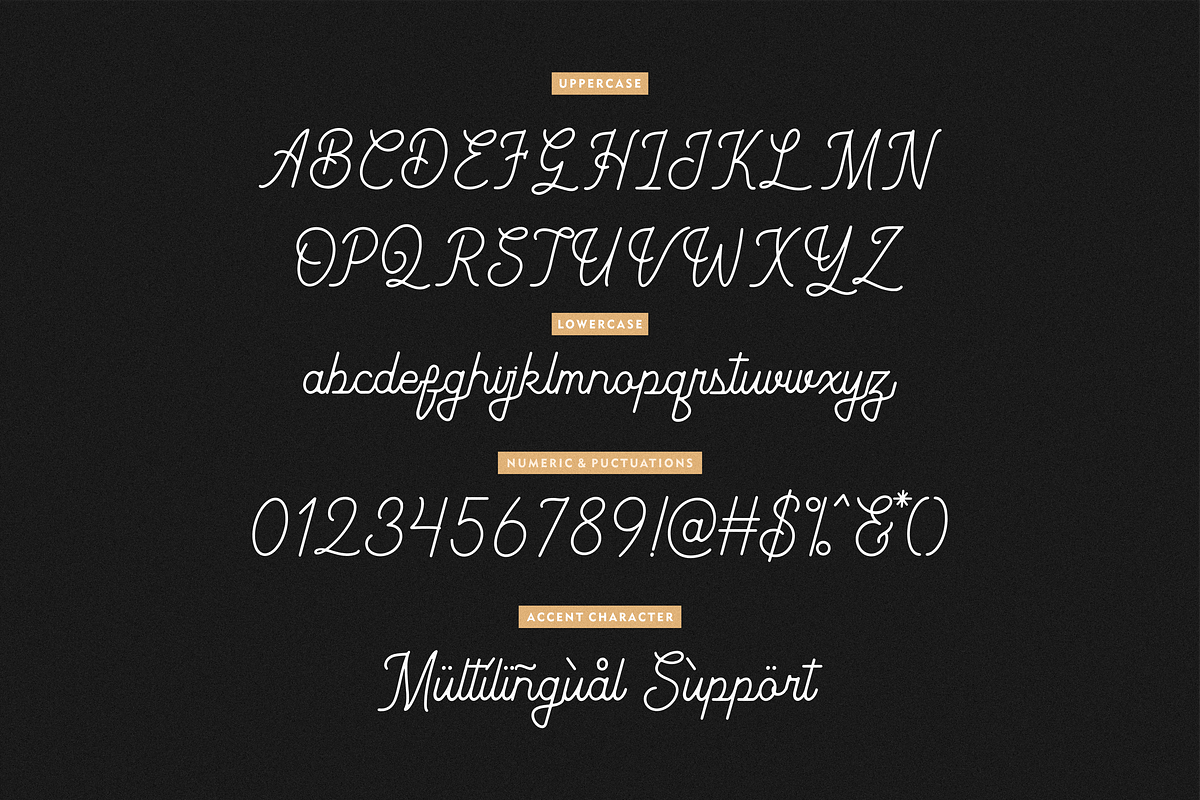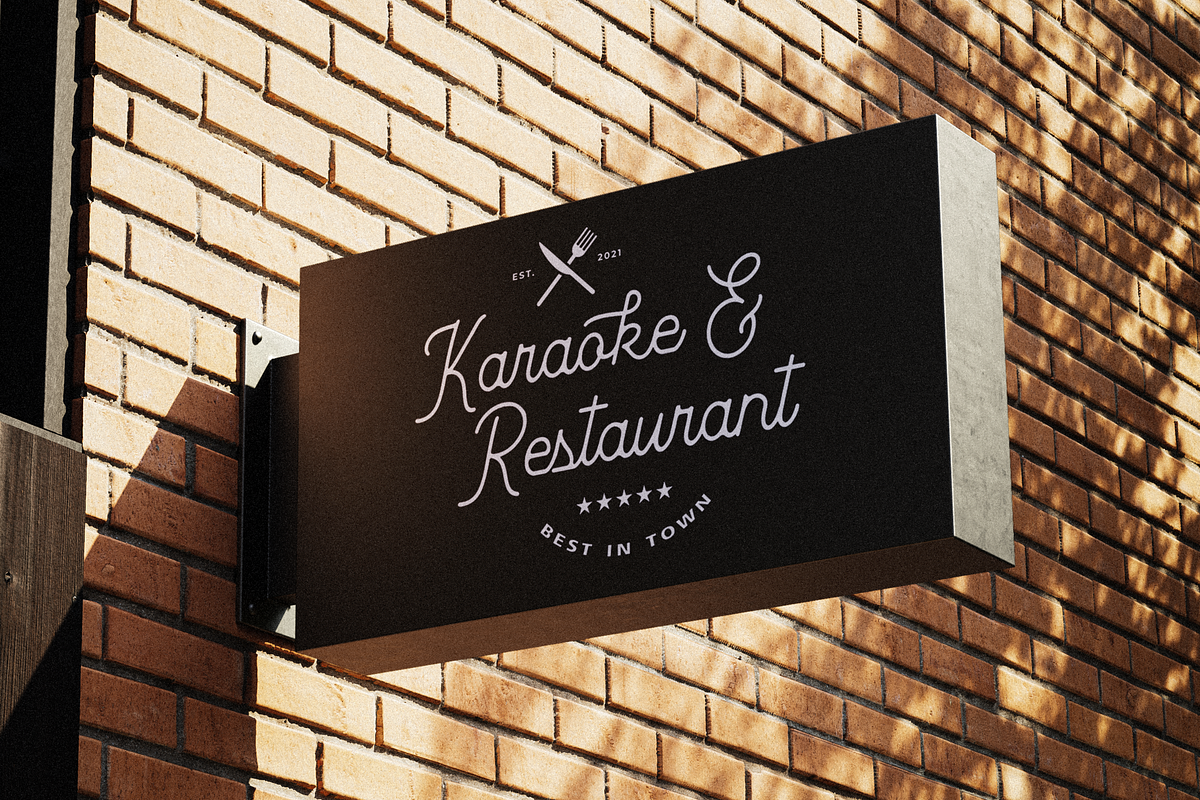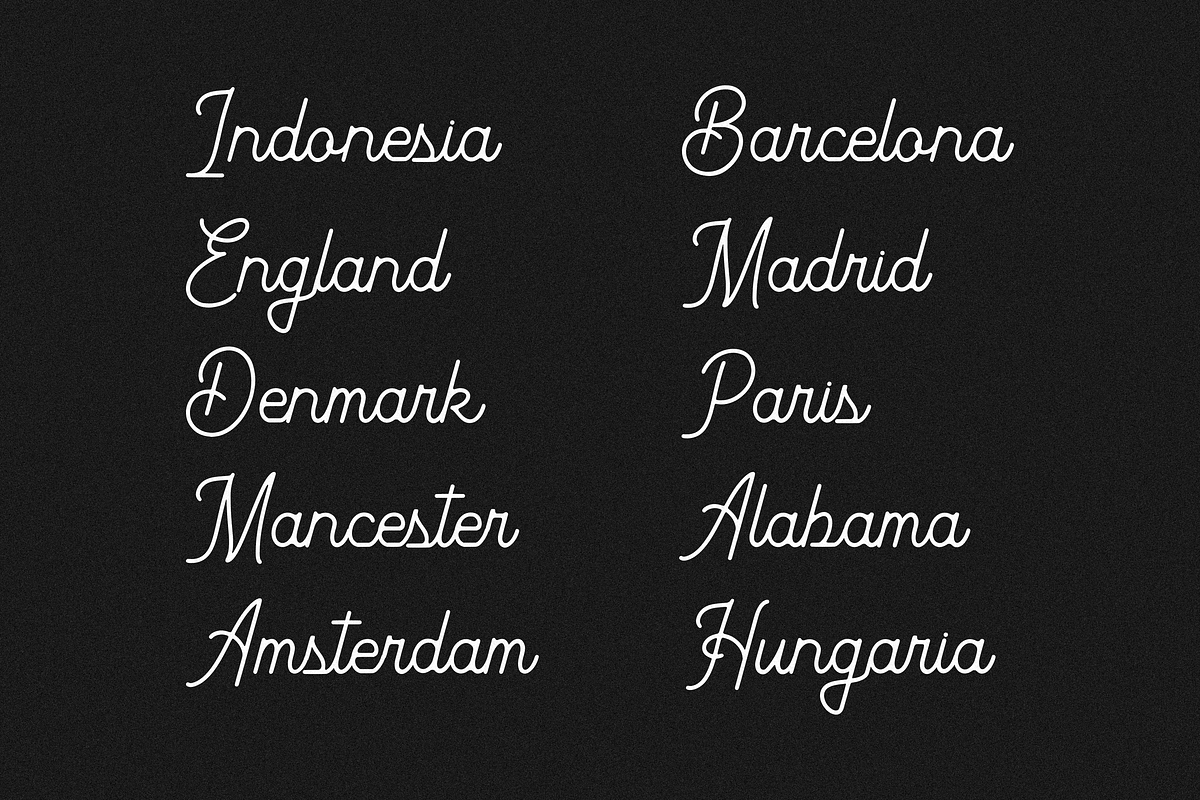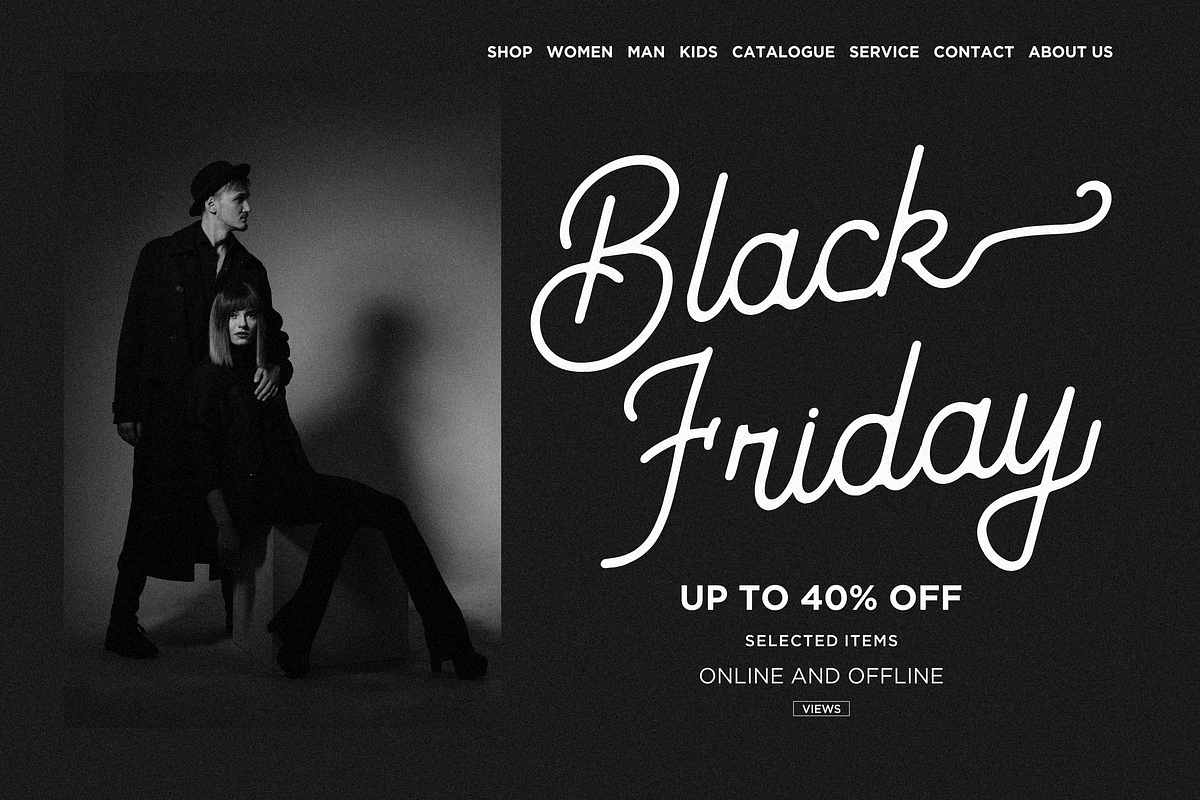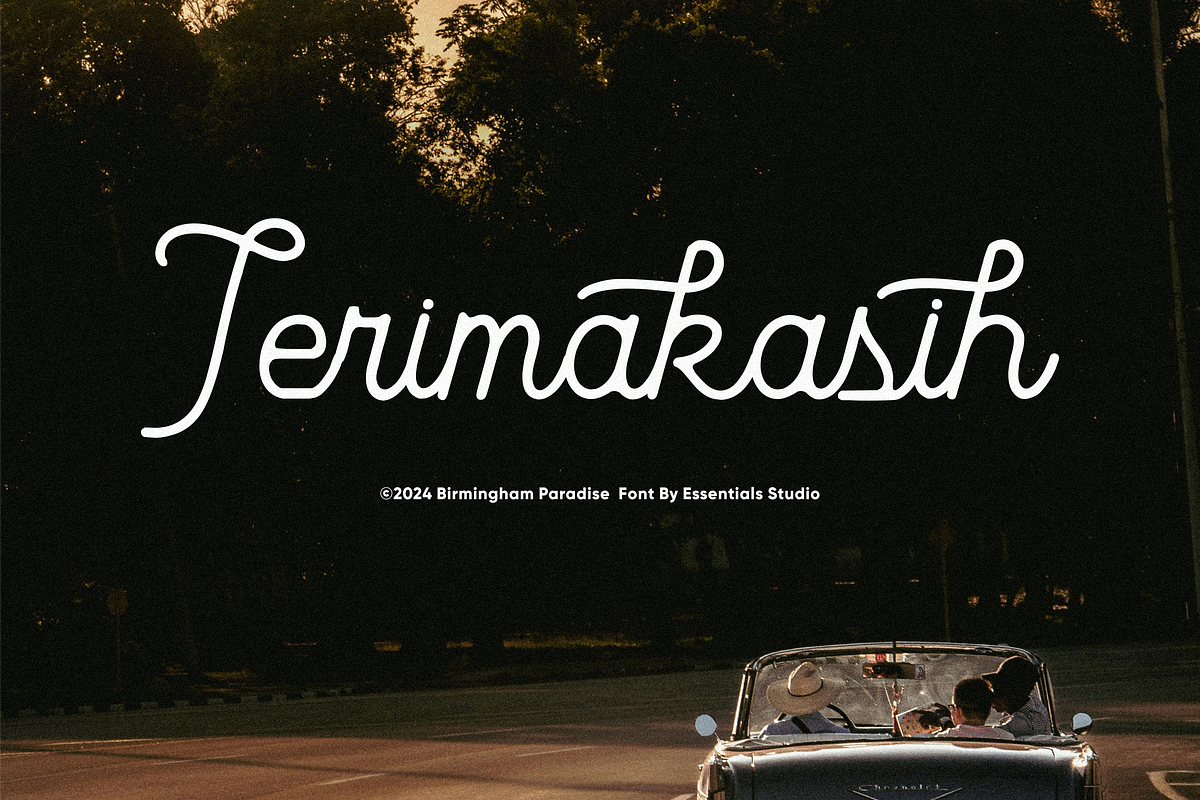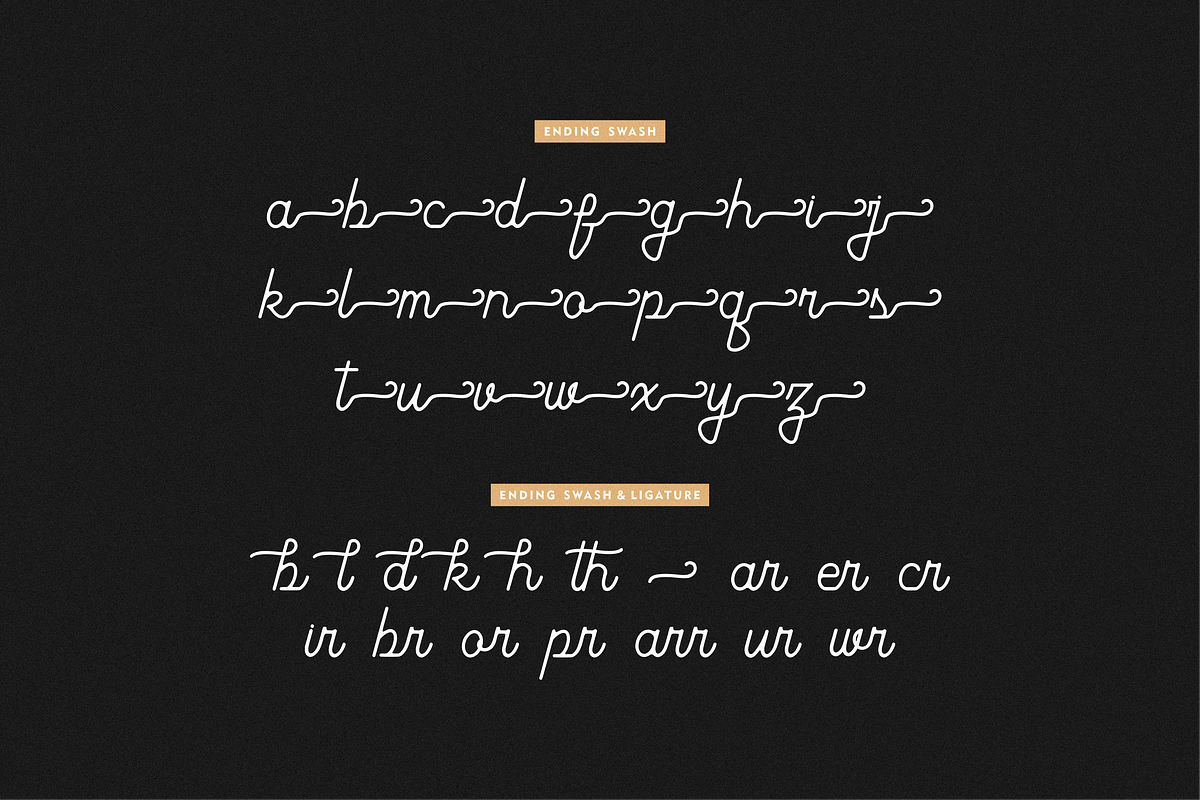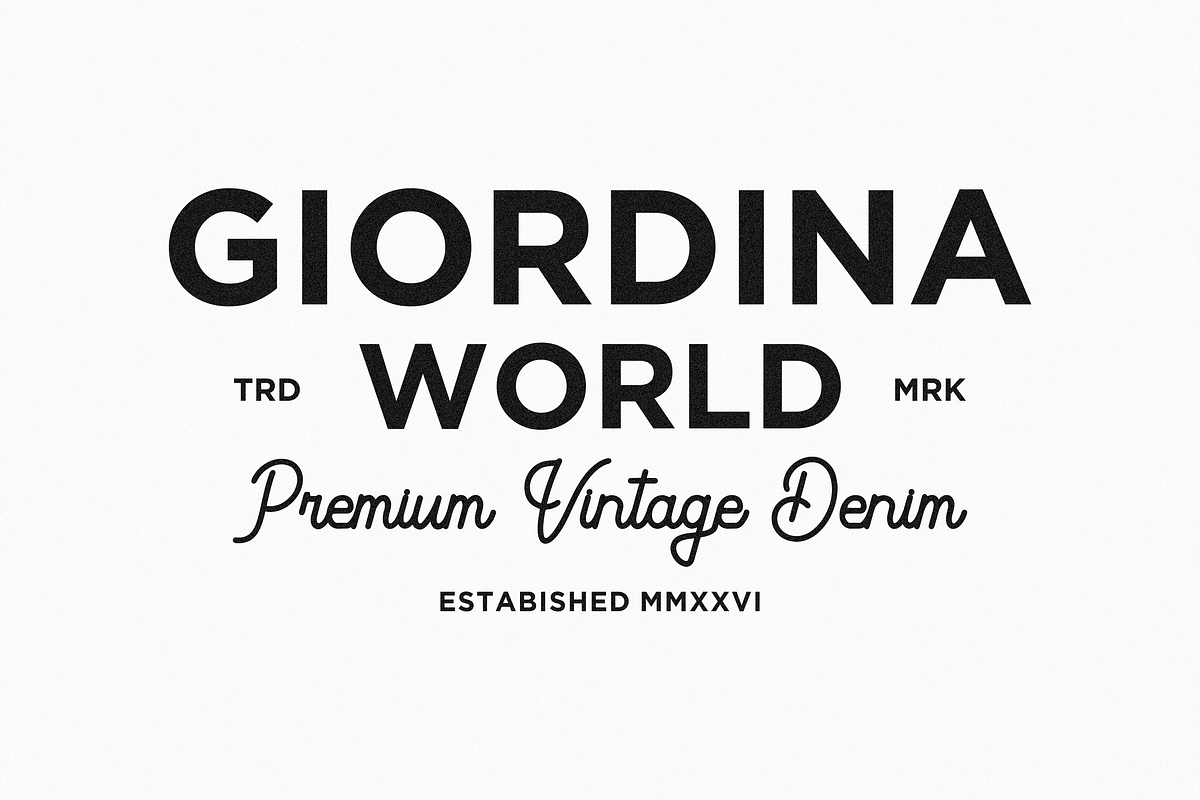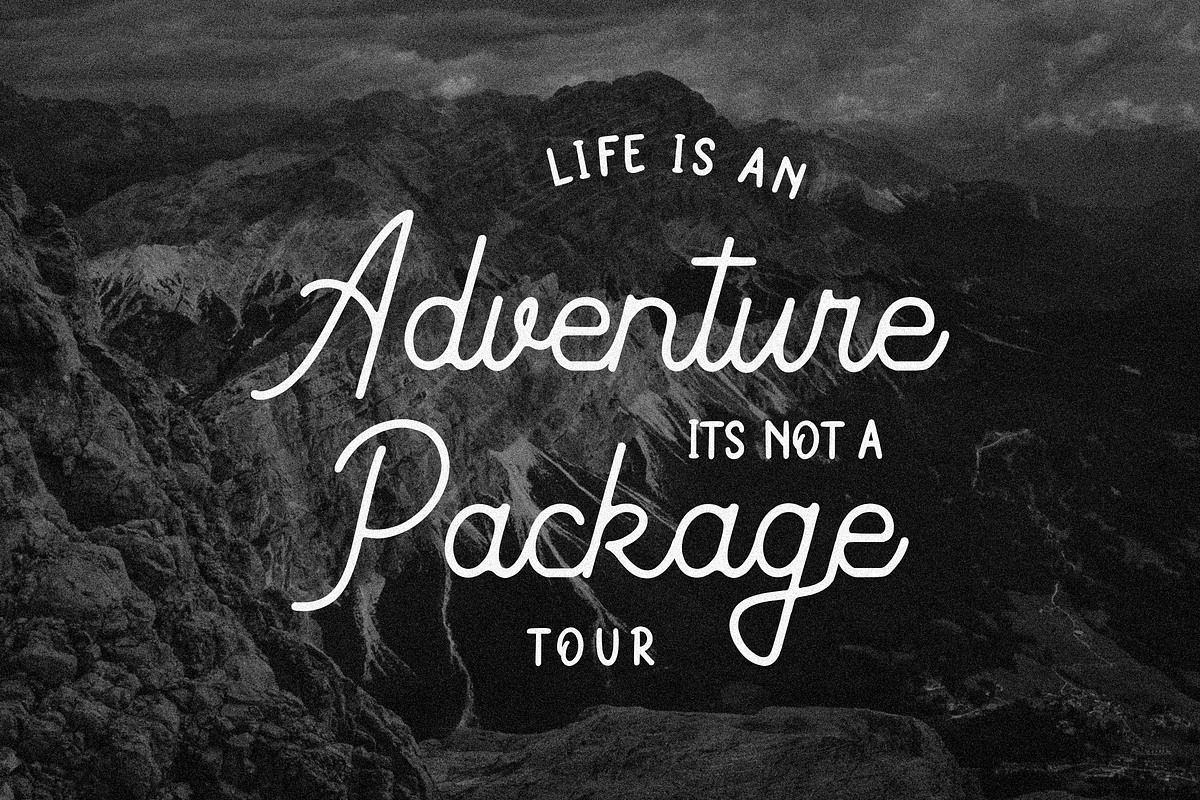
Birmingham Paradise - Monoline Font
Introducing 'Birmingham Paradise' by Essentials Studio - a meticulously crafted monoline script font, brimming with character and vintage zest. Mirroring the aesthetic of retro signage, yet embodying a softened modern edge, Birmingham Paradise paints a rich, complex picture of subtlety and sophistication. This font isn't just an ideal match, but a creative powerhouse for a plethora of projects. Whether it be crafting icons and branding, designing impactful covers, enhancing corporate displays or adding a touch of old-world charm to wedding invitations, this versatile font breathes life into your work. For additional versatility, it effortlessly elevates magazine layouts, business cards, product packaging, and any design project that calls for a vintage flavor with a modern twist. With Birmingham Paradise, let your work speak volumes and capture a timeless essence.